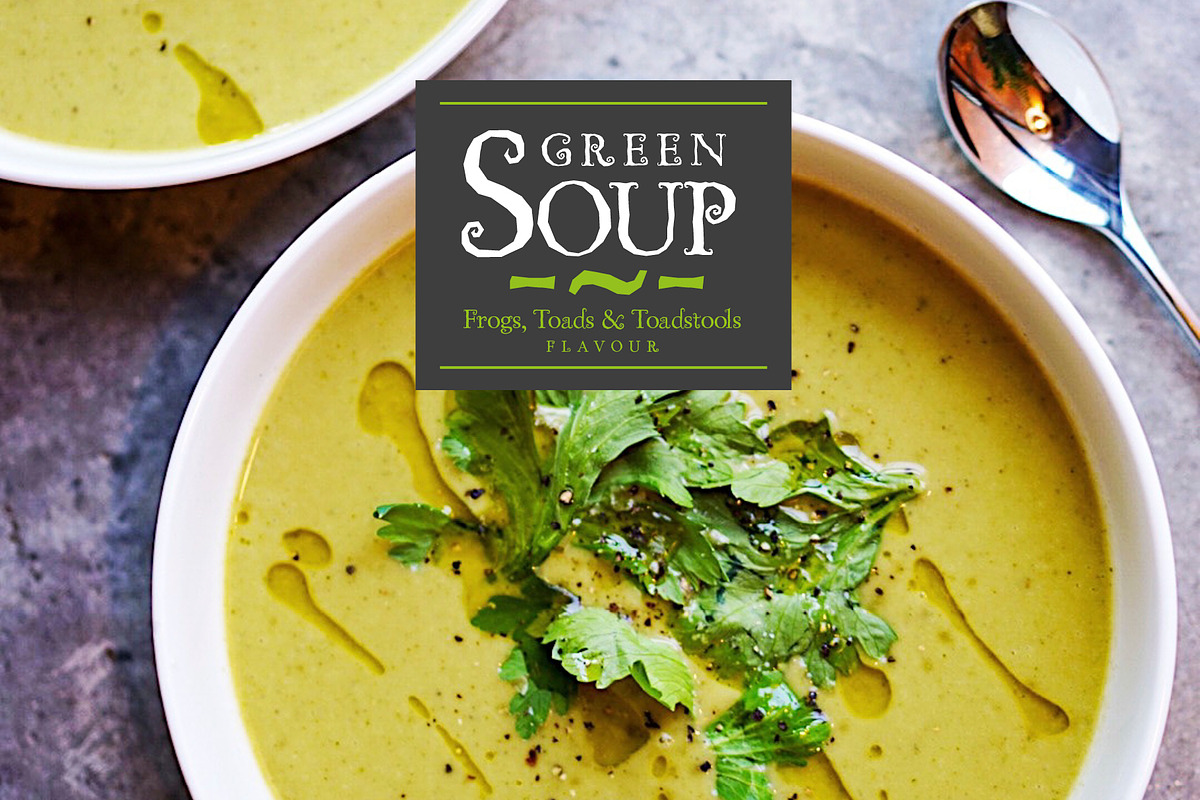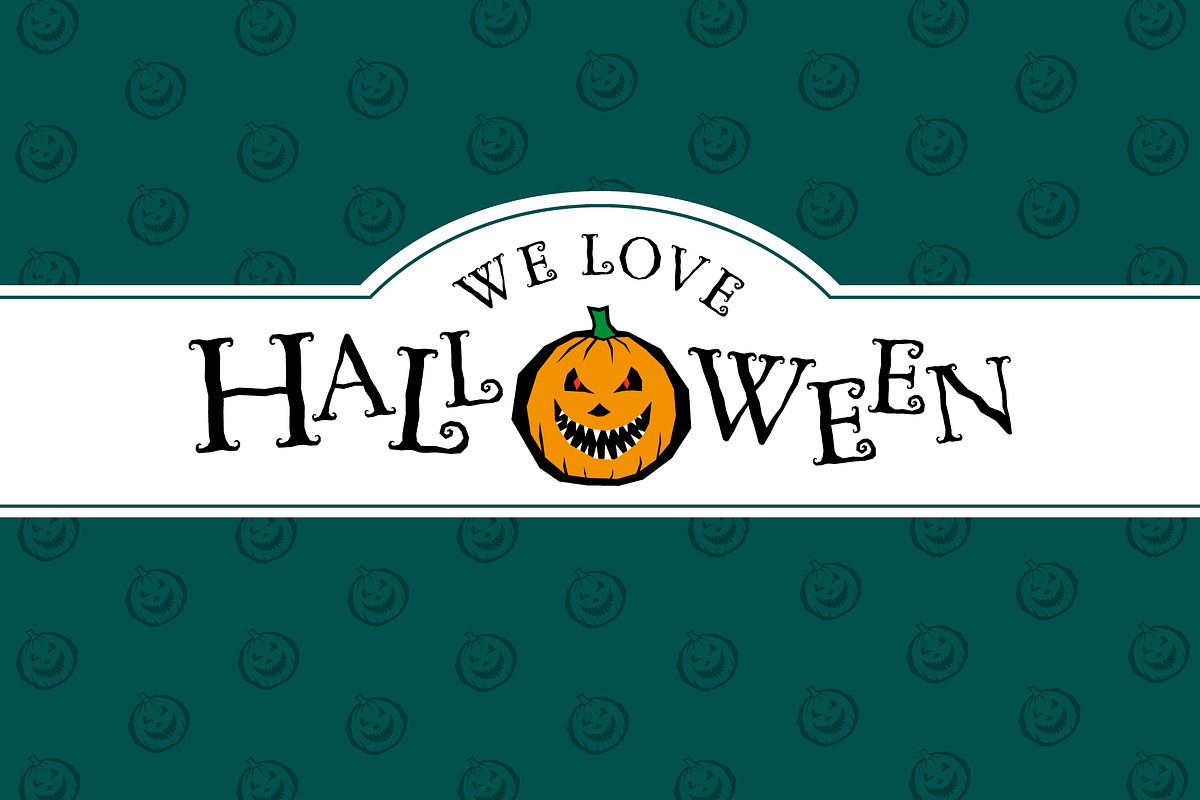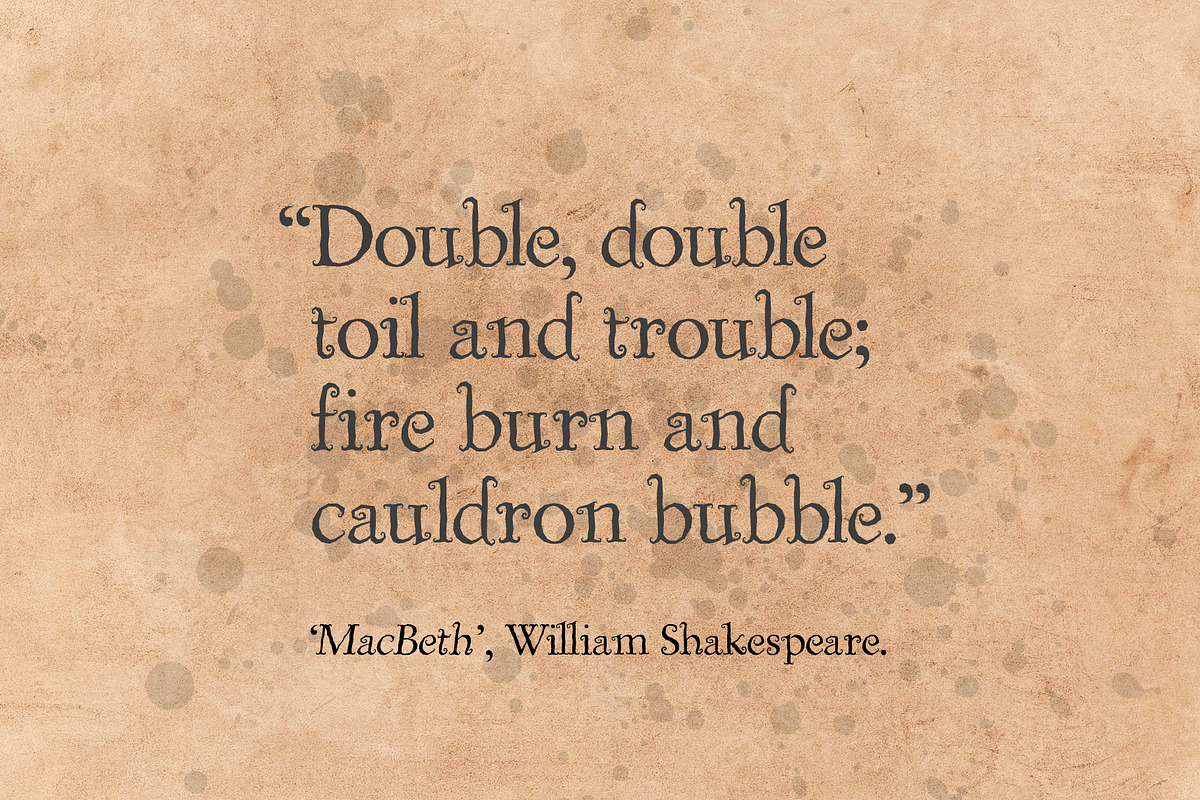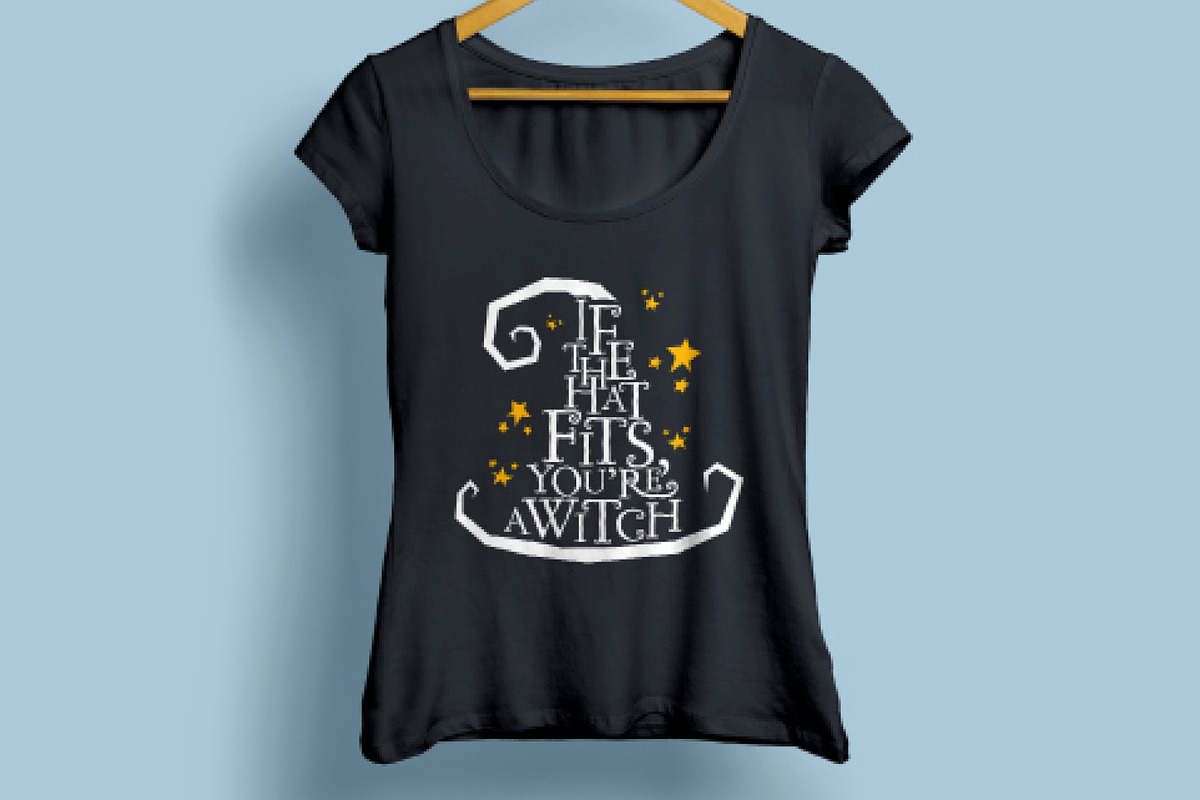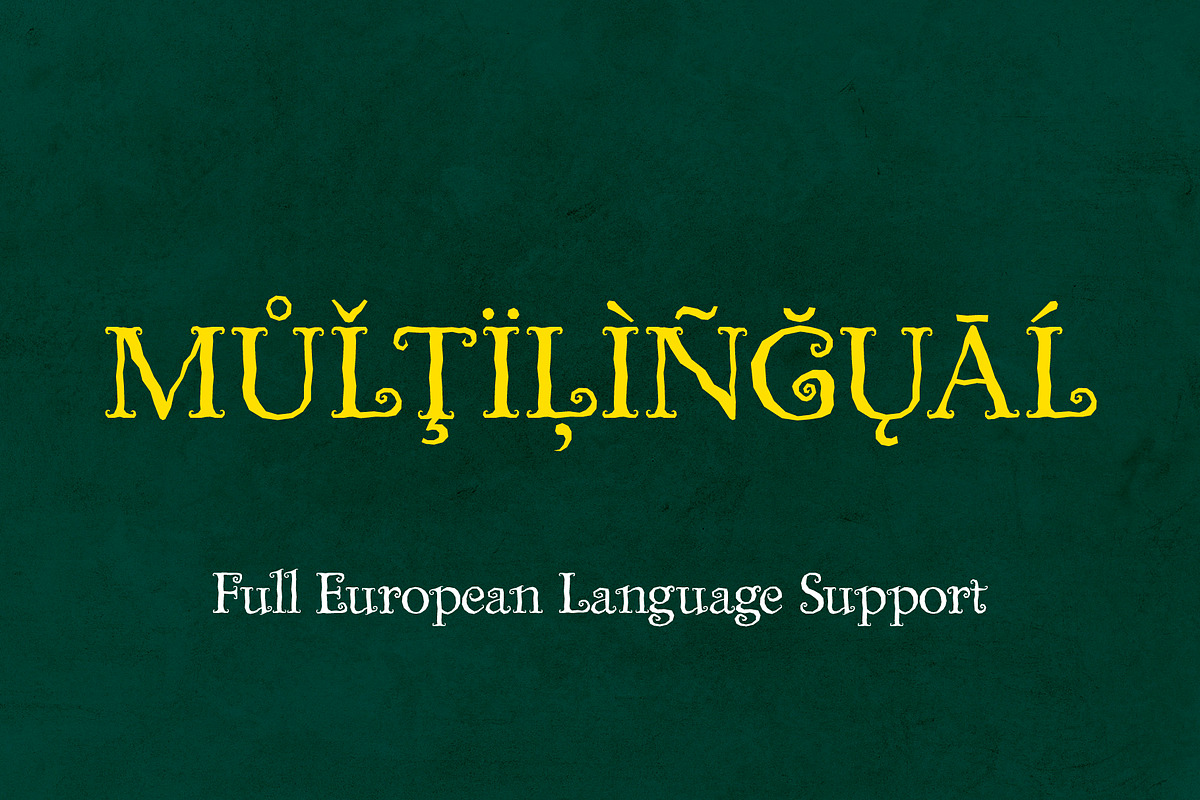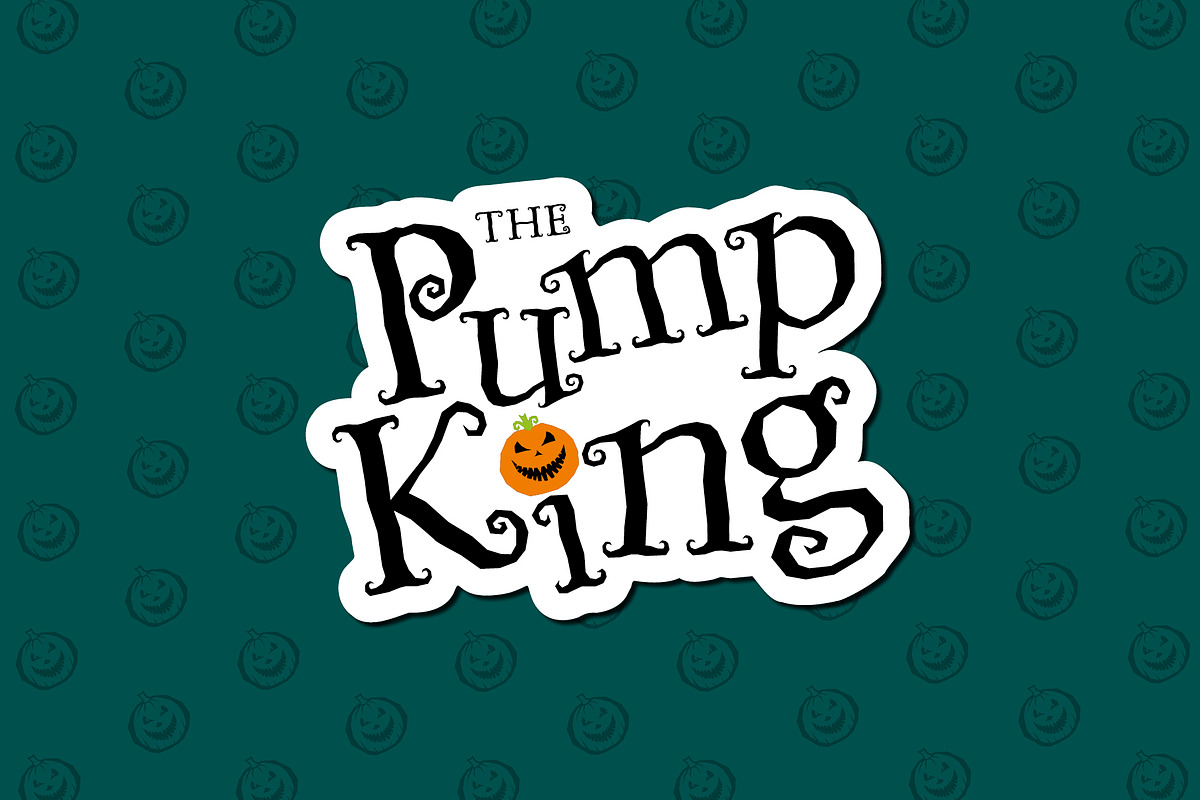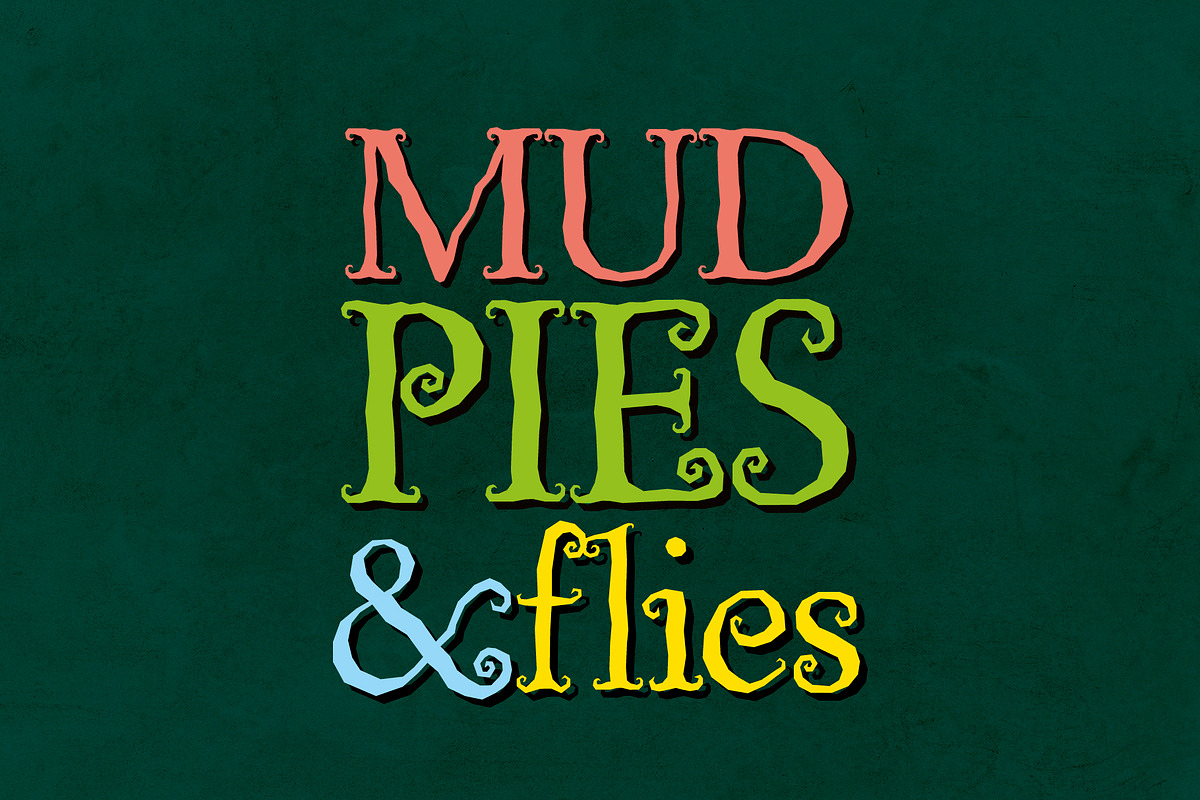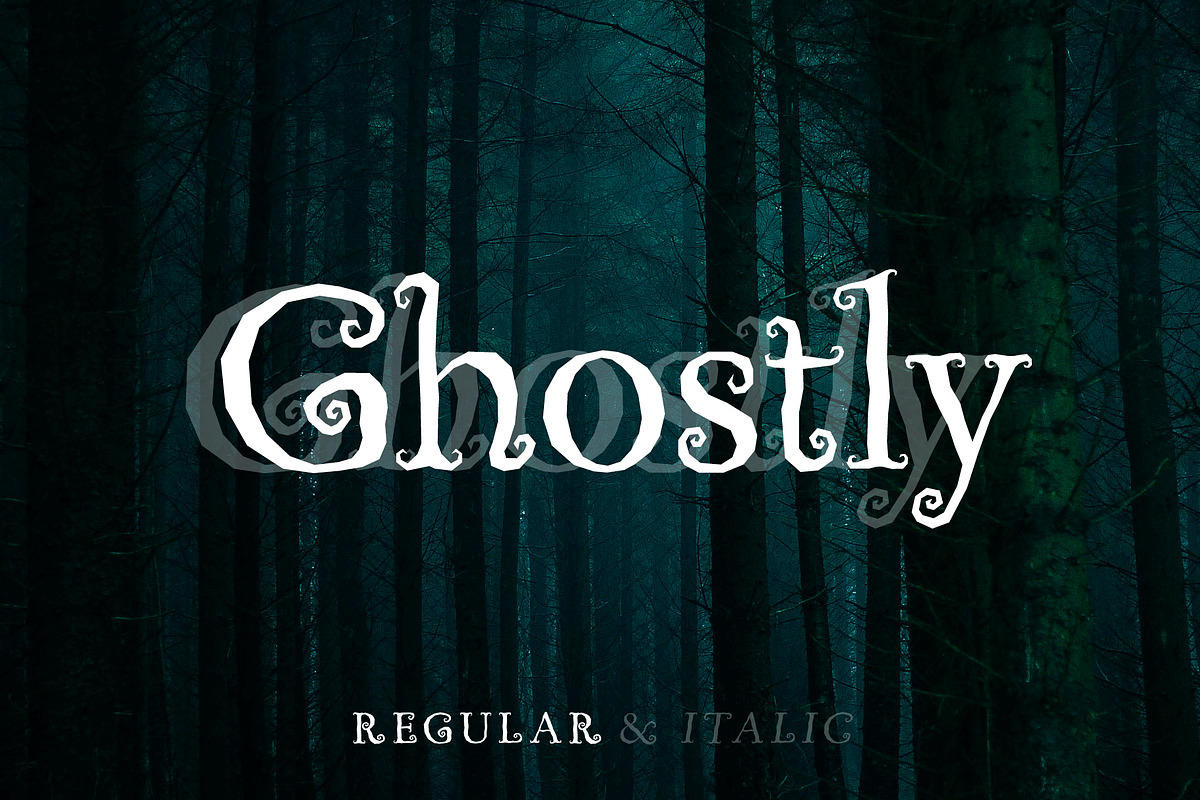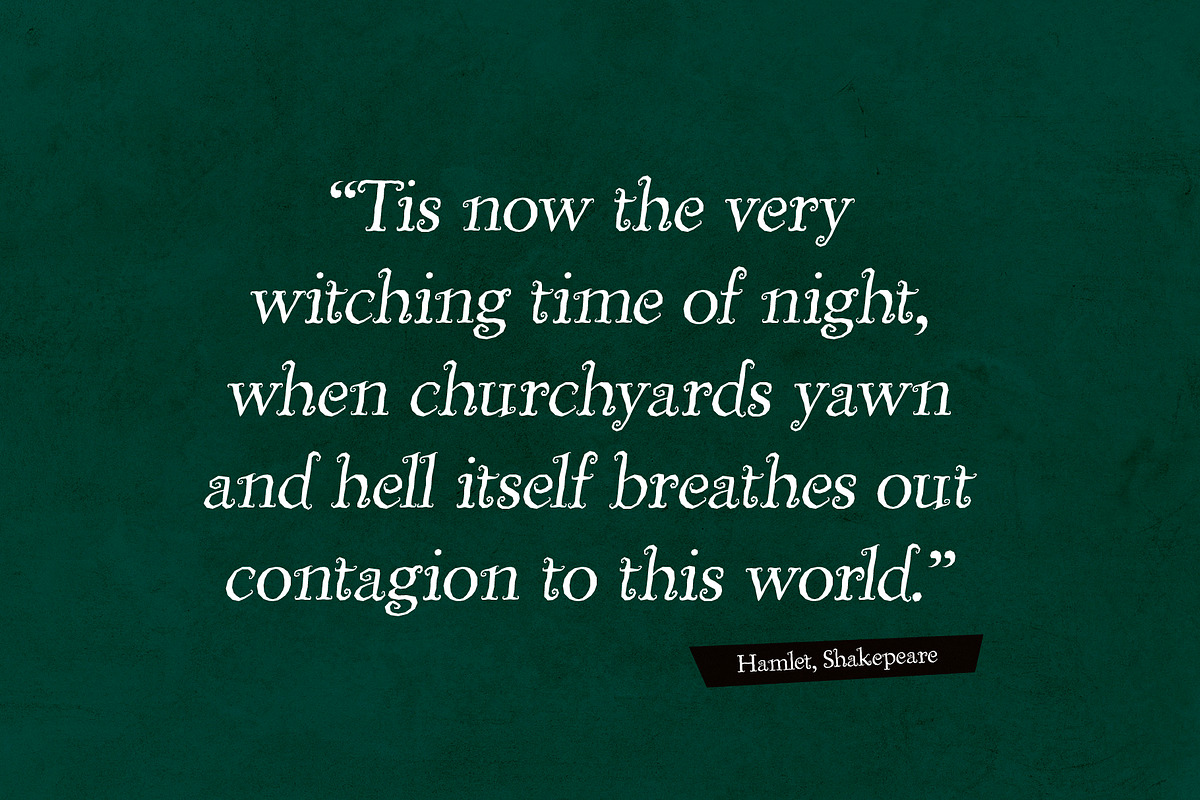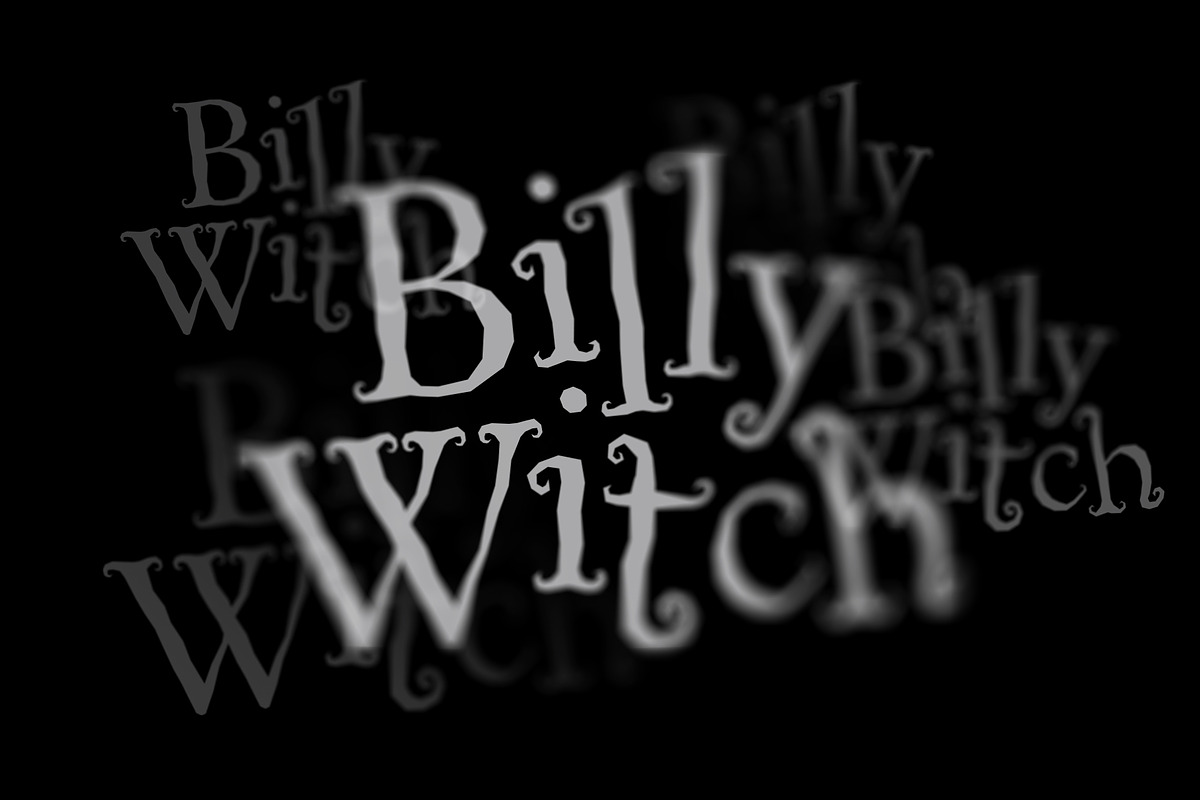
Billy Witch -spellbinding serif font
Billy Witch is a spellbinding swirly serif font. It comes in both regular and italic.
A spooky and fun font with a touch of horror! A great Halloween font. It has decorative swirly serifs but is also jagged, sharp and pointy. This gives it an old and traditional feel yet is distressed in a modern, angular way adding a contemporary twist. Ideal not just for Halloween, but for anything to do with witches and wizards and all things magical and mystical. It is also a fantastic logo font and looks fabulous on products. Grab it and create your very own 'spell' binding designs.